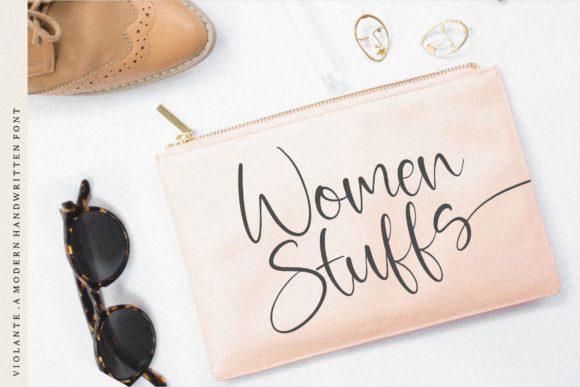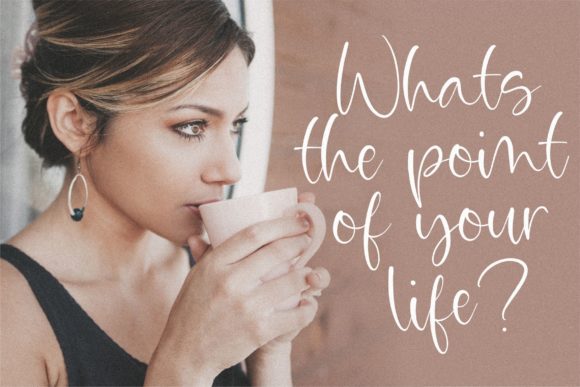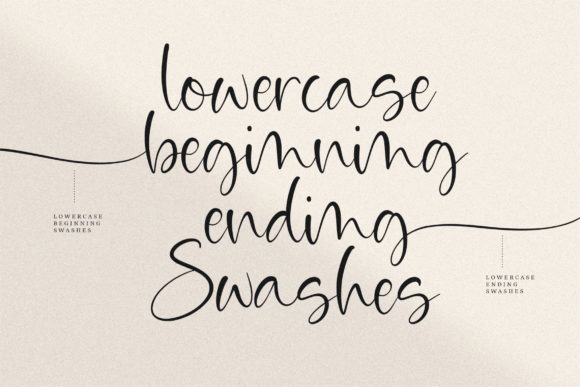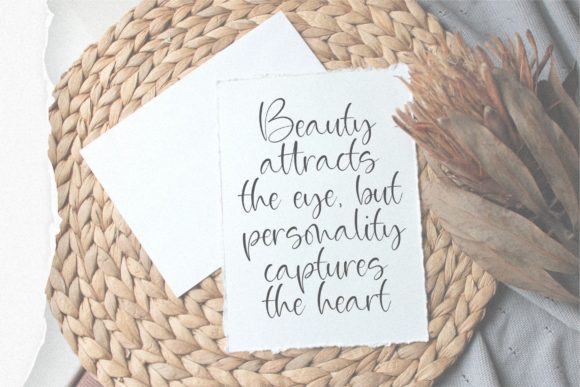
About Violante Font
Violante is a beautiful light handwritten font with a unique feel and a stunning impact. It will add a luxury spark to any design project that you wish to create! This font is PUA encoded which means you can access all of the glyphs and swashes with ease!